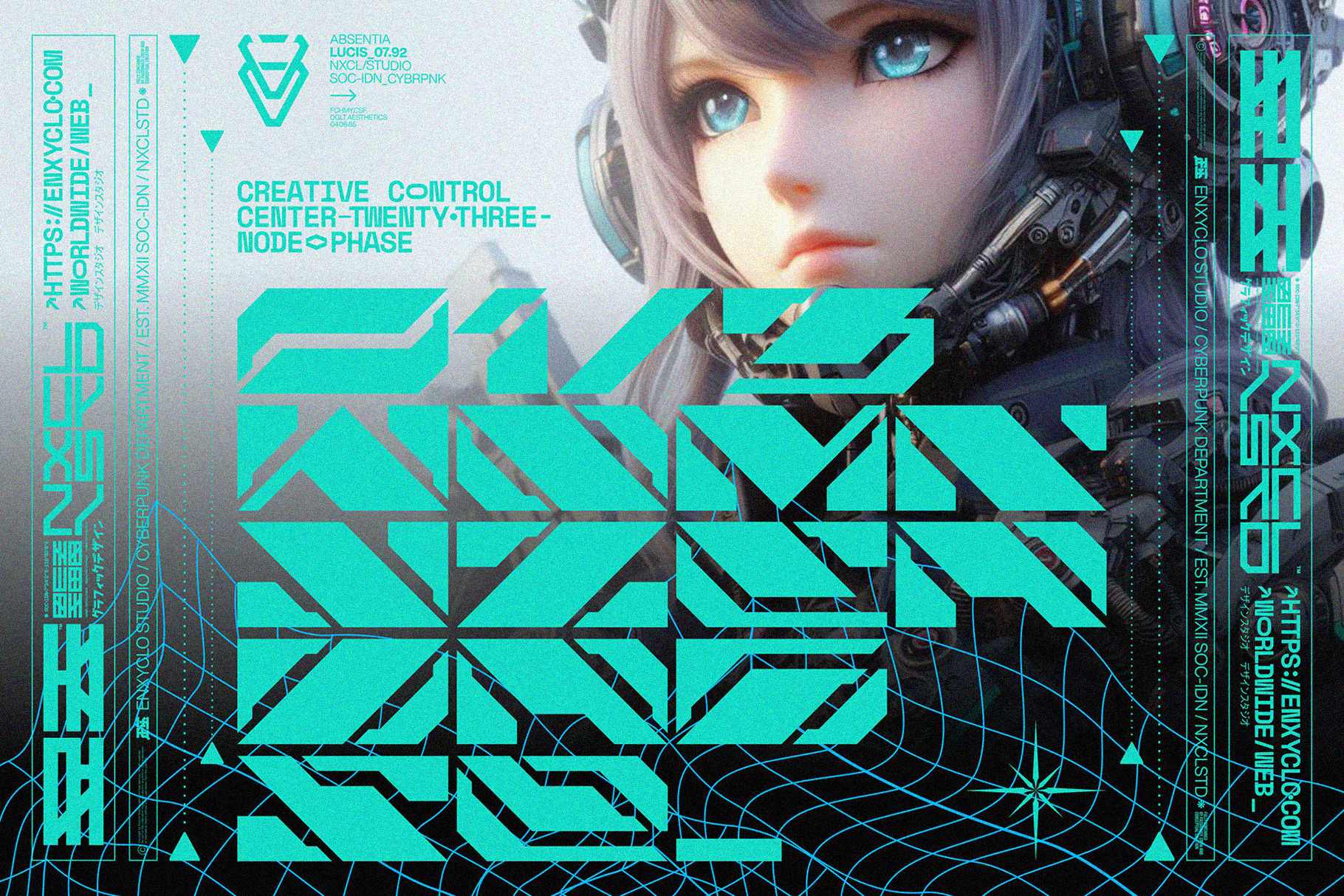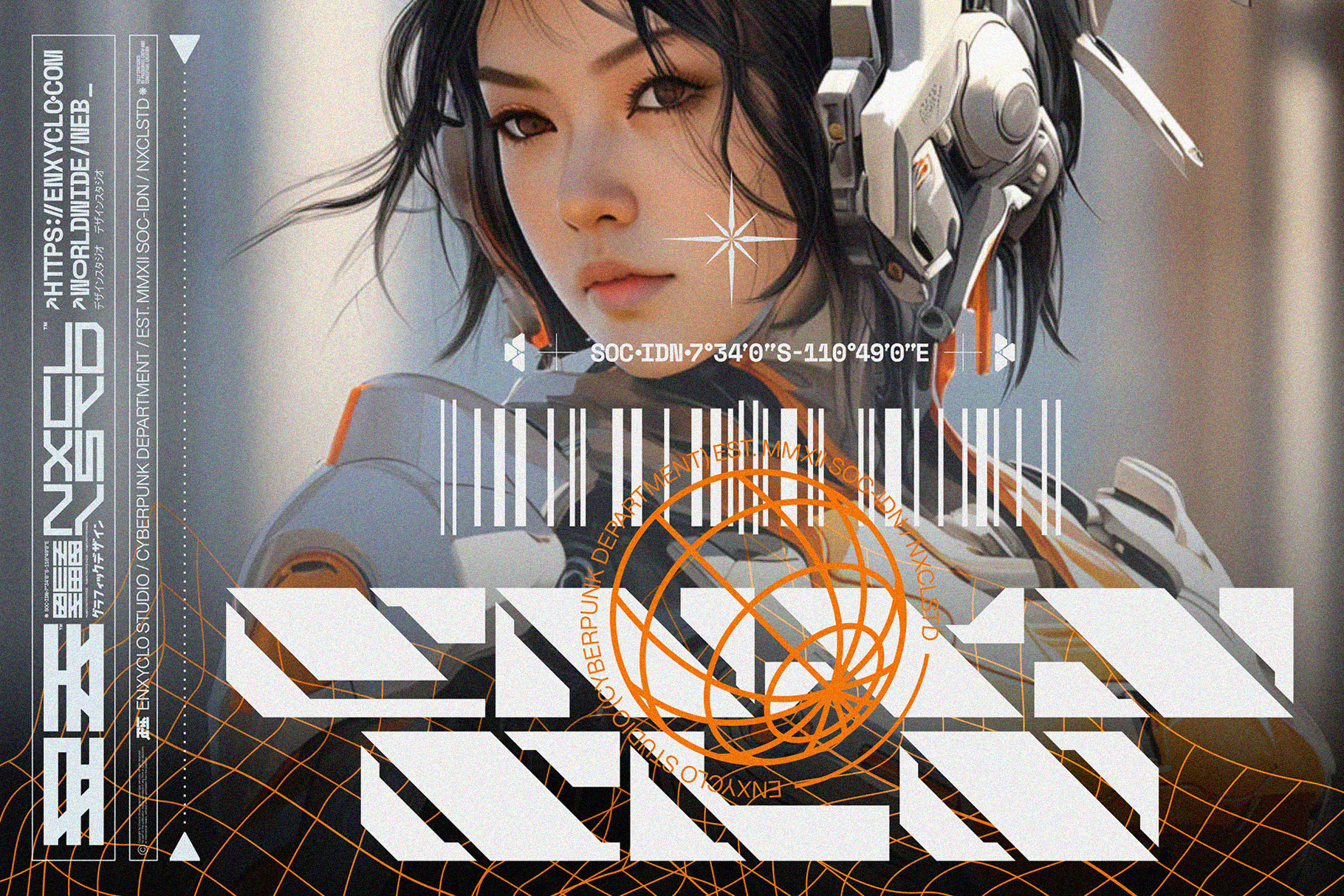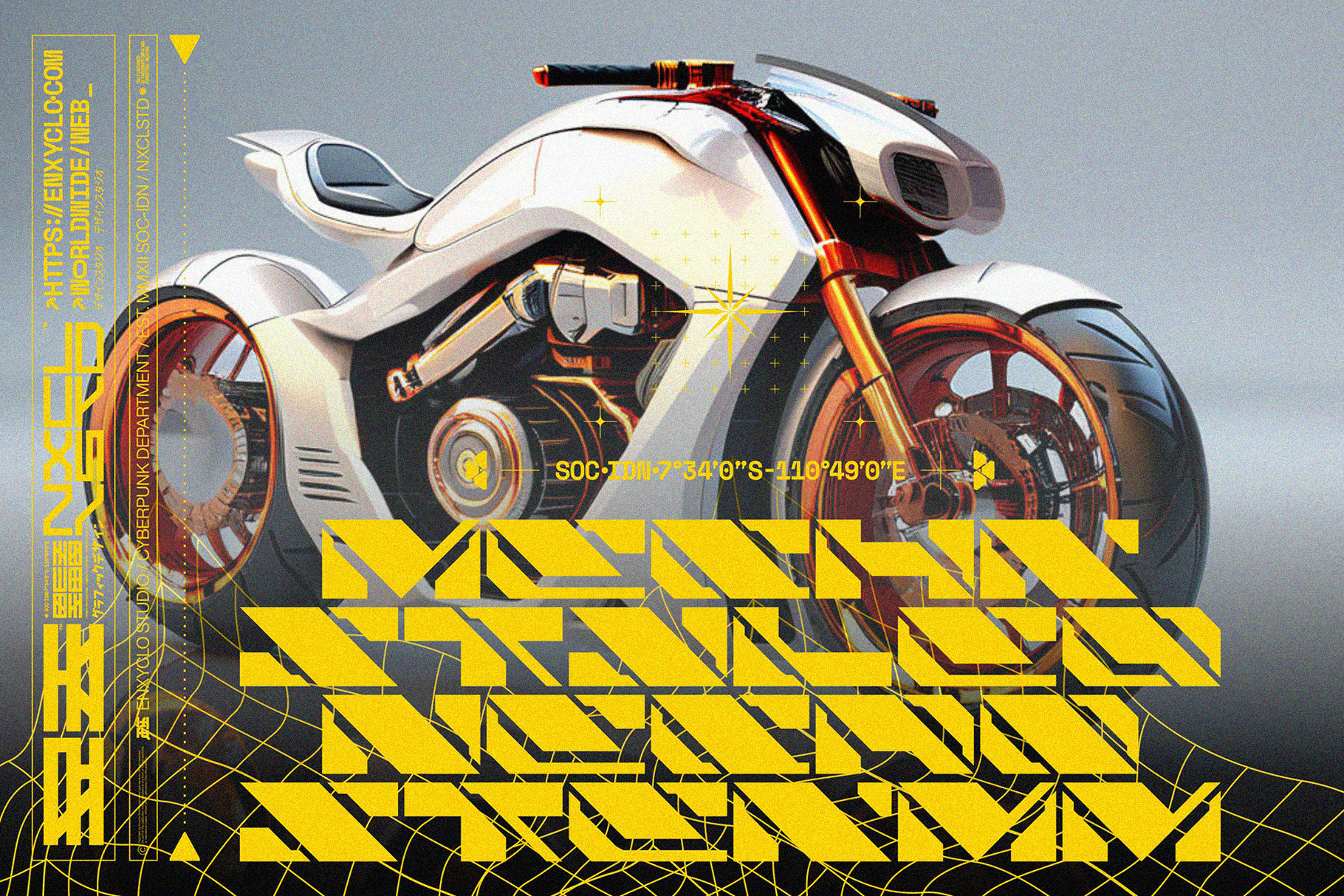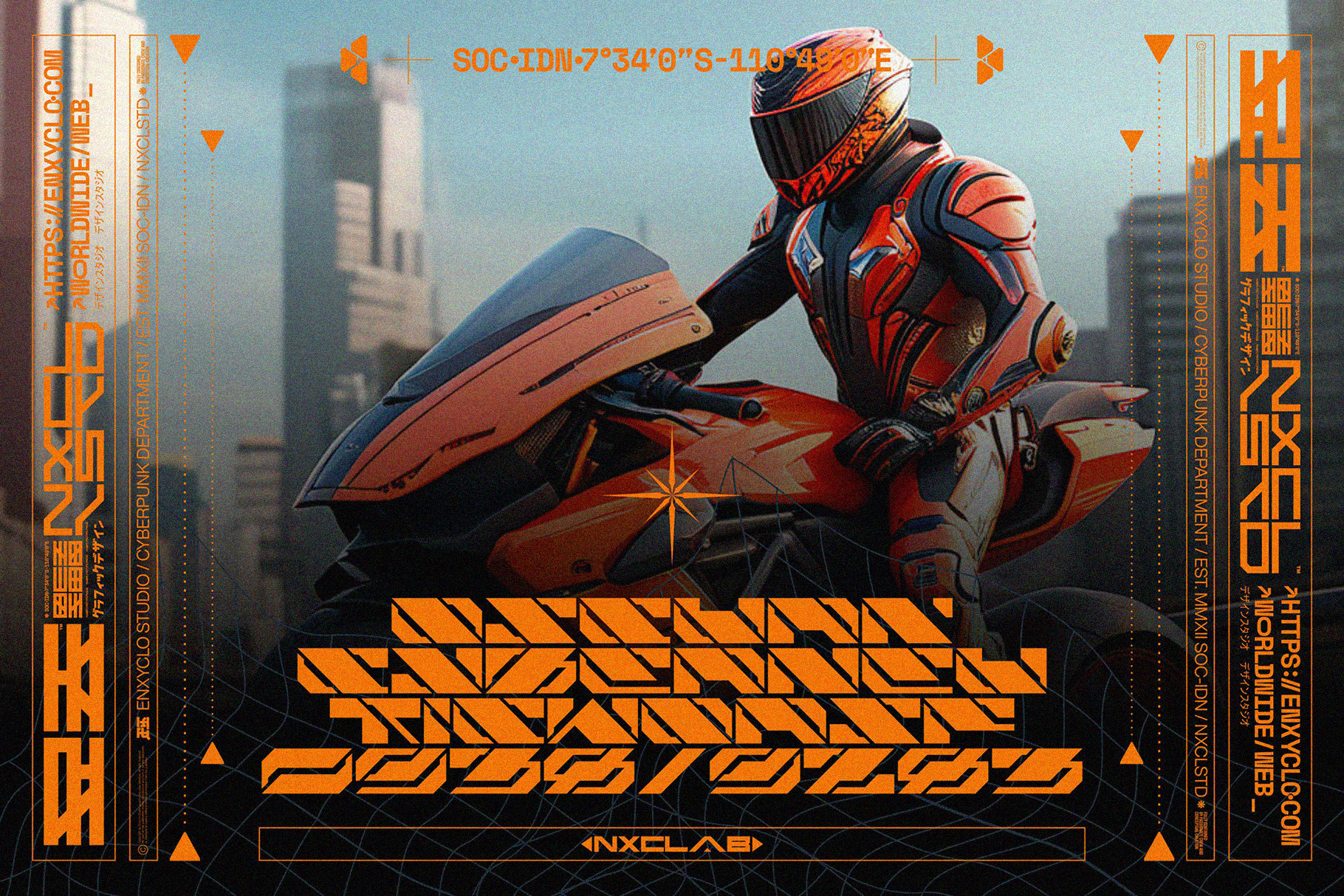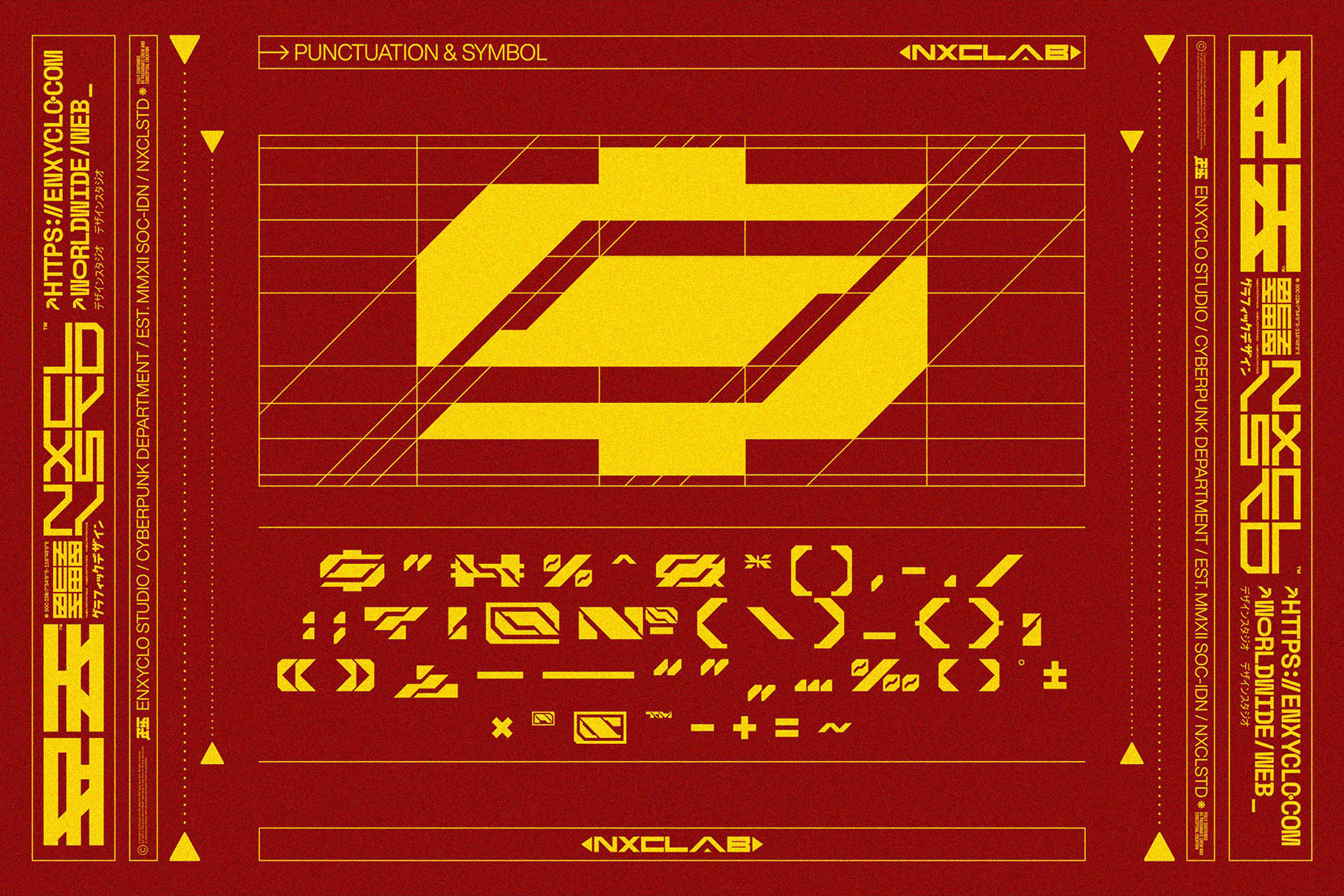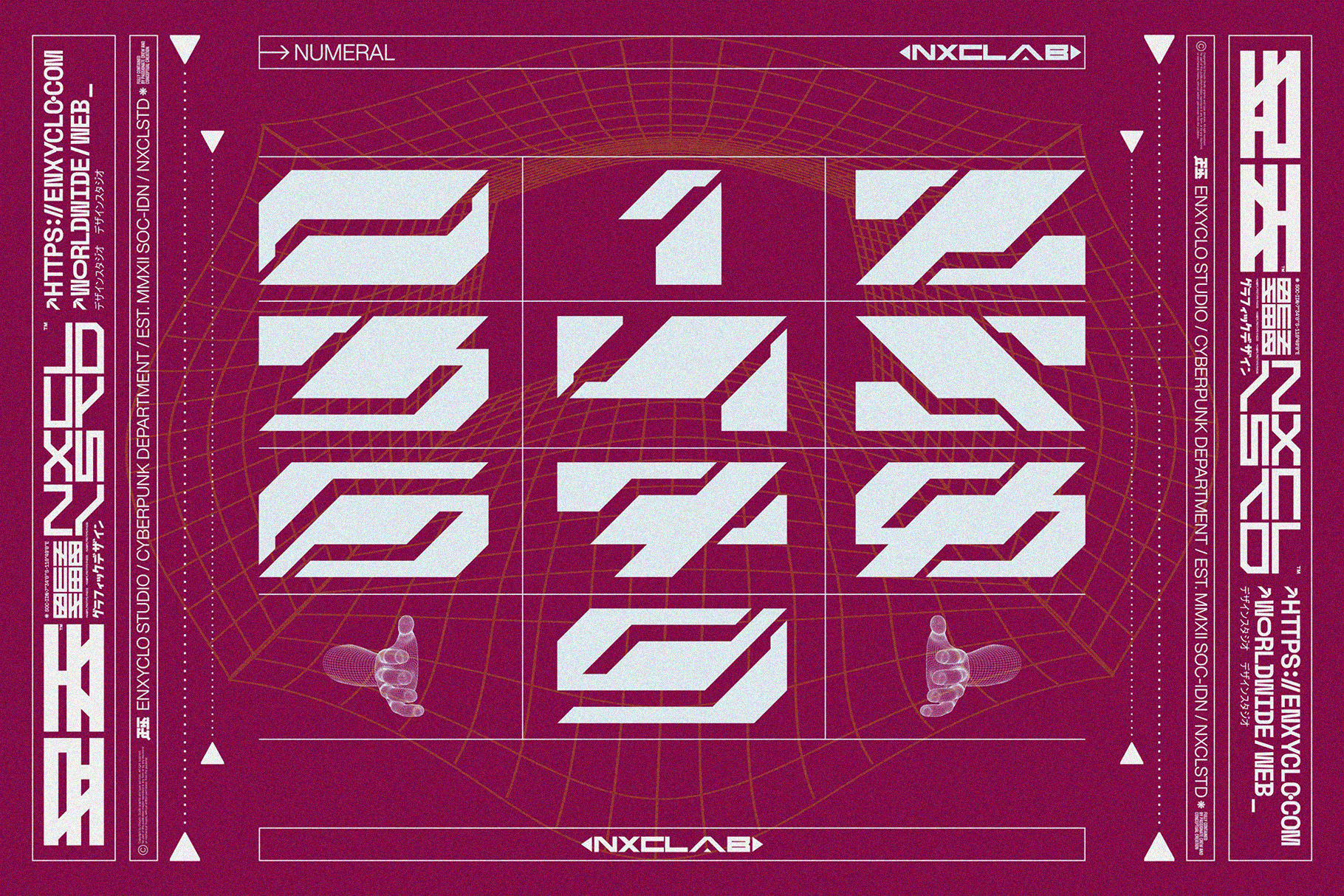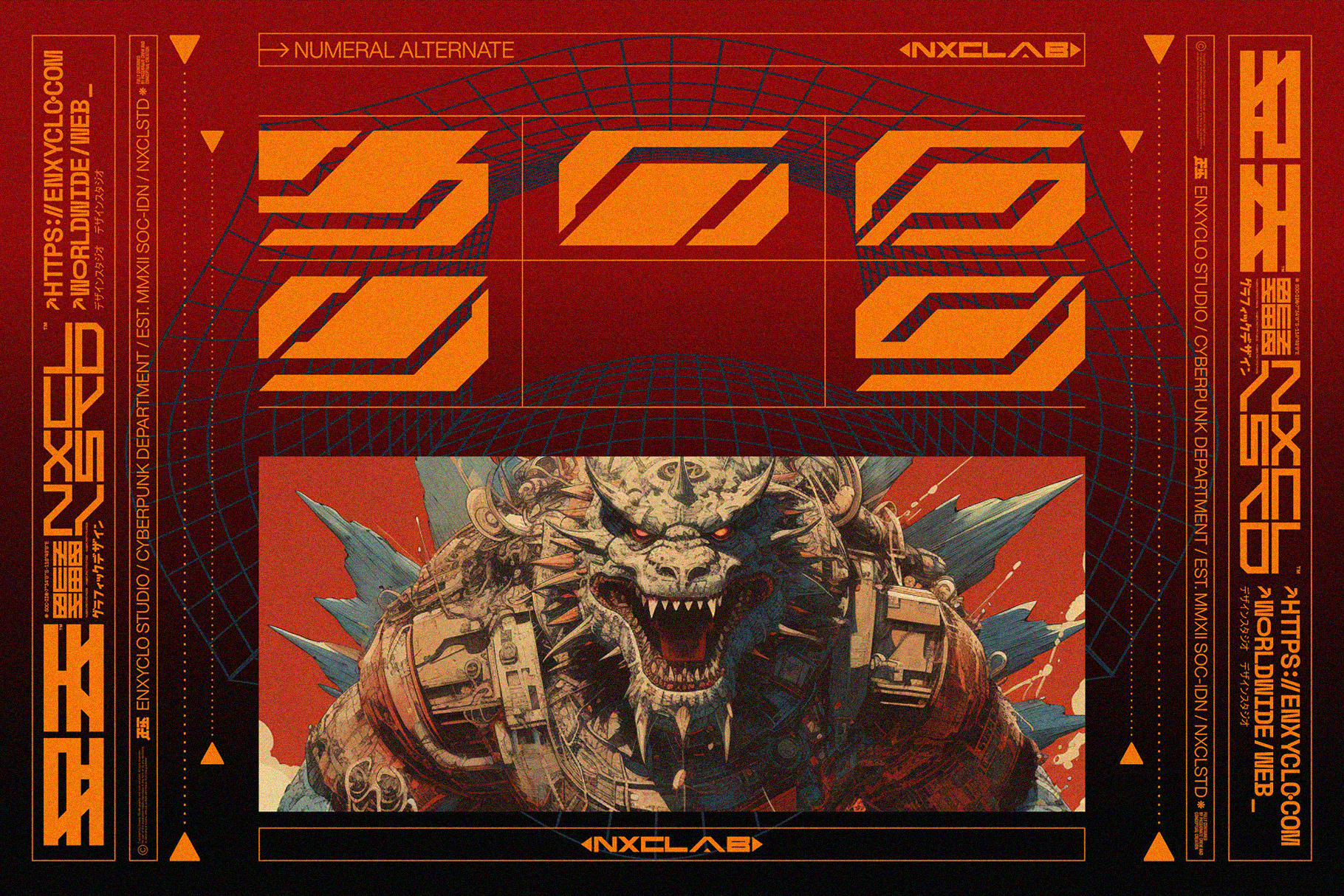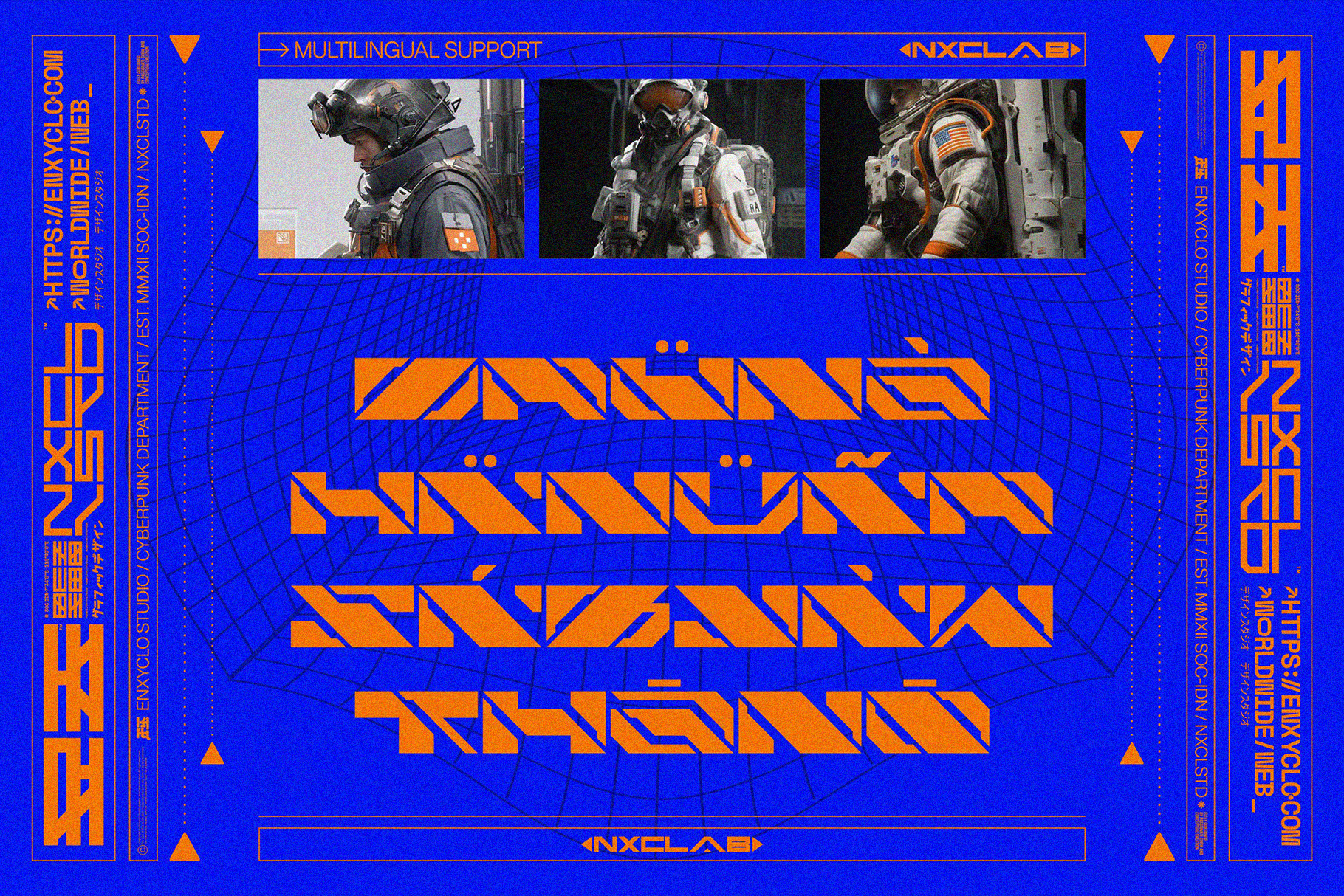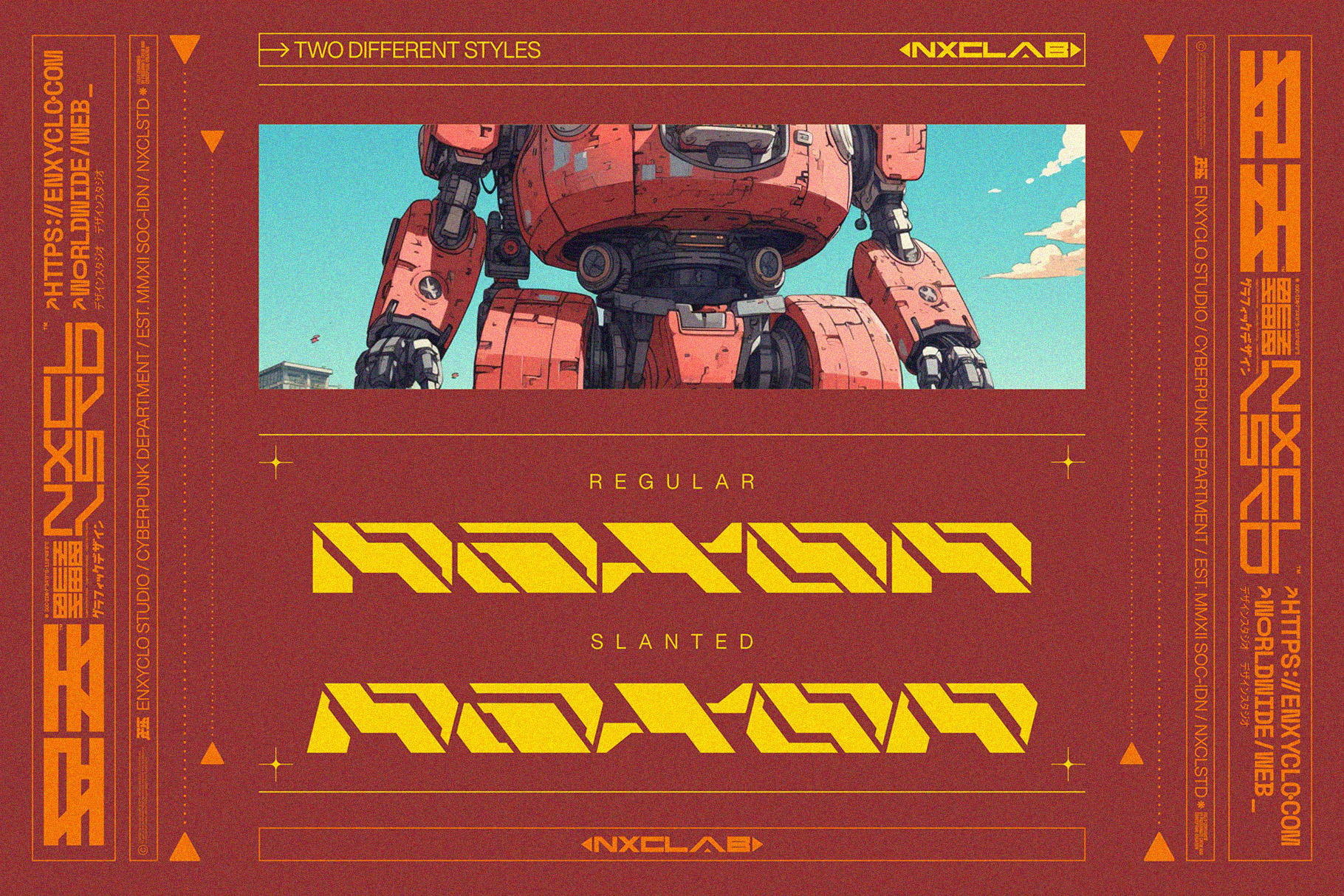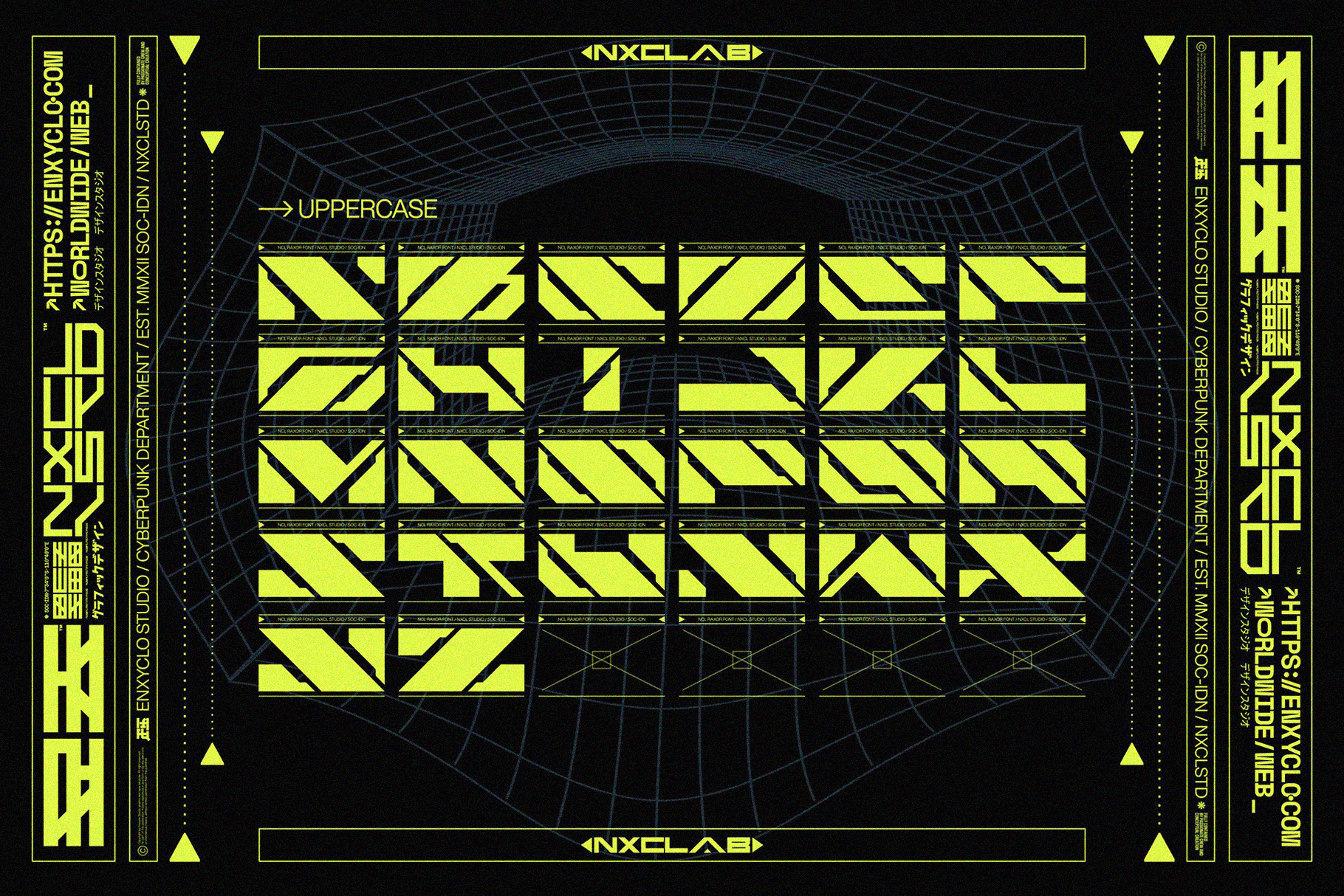
NCL Raxor – Cyberpunk Futuristic Y2K Mecha Font
Make your work bolder with NCL RAXOR, the ultimate futuristic y2k cyberpunk mecha typeface inspired by industrial and mecha-robotics. This stunning and powerful font cuts through the noise, bringing a bold industrial edge to your designs. With its sleek and futuristic design, this font is perfect for any futuristic or cyberpunk design, album artwork, posters, headlines, and logotypes. Add this font to your design toolkit today and unleash the cutting-edge style of this versatile font.
• 2 Styles: Regular and Slanted
• Contains 367 Glyphs for Each Style
• Stylistic Set 1-7
• Uppercase & Lowercase
• Numeral, Punctuation & Symbols
• Multilingual Support